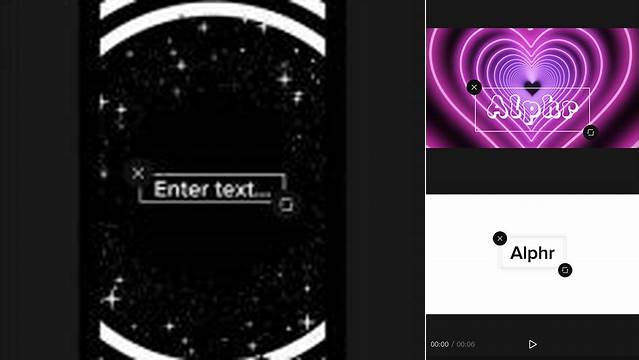
Best Fonts For CapCut: Make Your Videos Pop!
Hey guys! Ever wondered how to make your CapCut videos truly stand out? It’s not just about the awesome footage and slick editing – the fonts you use play a HUGE role. Choosing the right font can elevate your video from amateur to professional, adding that perfect touch of personality and clarity. So, let's dive into the best fonts to use in CapCut and how to make the most of them. We'll be covering everything from the basics of typography to specific font recommendations that will make your content shine. Ready to level up your video editing game? Let’s get started!
1. Understanding Typography Basics for CapCut
Before we jump into specific fonts, let's quickly cover some typography basics. Typography is the art and technique of arranging type to make written language legible, readable, and appealing when displayed. In the context of CapCut, understanding typography means knowing how different font styles can impact your video's message and overall aesthetic. There are a few key elements to consider, including font styles like serif, sans-serif, script, and display fonts, as well as concepts like kerning, leading, and tracking. Knowing these terms and how they apply to your font choices will help you create visually stunning and effective videos. When you consider the basics of typography for CapCut, you’ll find your videos start to look more polished. Think about how different fonts evoke different emotions. A playful script font might be perfect for a vlog, while a clean sans-serif font might be better suited for a tutorial or corporate video. You also need to think about readability. Is the font easy to read on different screen sizes and against different backgrounds? These are important questions to ask yourself when choosing the best fonts for your project. Experiment with different combinations and see what works best for your style. Typography is all about finding the right balance between aesthetics and functionality. So, take the time to learn the basics, and you'll be well on your way to creating visually compelling videos in CapCut.
2. Serif Fonts: Classic and Elegant Choices
Serif fonts are characterized by the small decorative strokes (serifs) at the end of each letter. These fonts are often associated with tradition, elegance, and authority. Think of classic books, newspapers, and high-end brands – they often use serif fonts. In CapCut, serif fonts can add a touch of sophistication and class to your videos. They work particularly well for titles, subtitles, and any text that needs to convey a sense of importance. When choosing a serif font for your project, consider the specific style and mood you want to create. Some popular serif fonts include Times New Roman, Garamond, and Playfair Display. Times New Roman is a classic choice, but it can sometimes feel a bit overused. Garamond is a more refined option, known for its readability and elegant appearance. Playfair Display is a bolder choice, perfect for headlines and titles that need to make a statement. The key is to find a serif font that complements your video's content and overall aesthetic. For instance, if you're creating a video about a historical topic or a formal event, a serif font might be the perfect choice. However, if your video is more casual and modern, you might want to consider a sans-serif font instead. Experiment with different serif fonts in CapCut and see how they impact the look and feel of your videos. Don't be afraid to mix and match different fonts, but always make sure your choices are cohesive and enhance your message. Remember, the goal is to create videos that are both visually appealing and easy to read.
3. Sans-Serif Fonts: Modern and Clean Options
If you're aiming for a modern, clean look, sans-serif fonts are the way to go. Unlike serif fonts, sans-serif fonts don't have those little decorative strokes at the ends of the letters. This gives them a more streamlined and contemporary feel. In CapCut, sans-serif fonts are incredibly versatile and work well for a wide range of video styles. They're particularly effective for body text, captions, and lower thirds, as they tend to be very readable on screens. When selecting a sans-serif font, think about the overall tone of your video. Do you want something bold and impactful, or something more subtle and understated? Some popular sans-serif fonts include Arial, Helvetica, and Montserrat. Arial is a widely used and highly legible option, making it a safe bet for most projects. Helvetica is another classic choice, known for its clean lines and timeless appeal. Montserrat is a more contemporary option, with a slightly bolder and more geometric design. Sans-serif fonts are also great for creating a sense of clarity and simplicity. They can help your message stand out without being overly distracting. For example, if you're creating a tutorial video, a clean sans-serif font can make the instructions easy to follow. Or, if you're making a promotional video, a bold sans-serif font can help your key messages pop. The key is to choose a sans-serif font that matches the overall style and purpose of your video. Don't be afraid to experiment with different options and see what works best for your specific needs. And remember, readability is key, so make sure your chosen font is easy to read on different devices and screen sizes.
4. Script Fonts: Adding a Touch of Personality
Script fonts mimic the flowing strokes of handwriting, adding a personal and artistic touch to your videos. These fonts can range from elegant and formal to playful and casual, making them a great option for adding personality and flair. In CapCut, script fonts are perfect for titles, intros, outros, and any text that needs a bit of extra character. They can also be used sparingly in body text to highlight key words or phrases. When choosing a script font, it's important to consider the overall tone and style of your video. A formal script font like Brush Script might be ideal for a wedding video or a high-end brand, while a more casual script font like Pacifico might be better suited for a vlog or a fun, informal project. Some popular script fonts include Brush Script, Pacifico, and Lobster. Brush Script is a classic choice, known for its elegant and flowing strokes. Pacifico is a more modern option, with a friendly and approachable feel. Lobster is a bolder script font, perfect for headlines and titles that need to make a statement. However, it's crucial to use script fonts sparingly and strategically. Because they can be more difficult to read than serif or sans-serif fonts, it's best to avoid using them for large blocks of text. Instead, use them to add a touch of personality and emphasis to key elements of your video. For instance, you might use a script font for the title of your video or for a special message at the end. The key is to find a balance between aesthetics and readability. Choose a script font that complements your video's content and overall style, but also make sure it's easy to read and understand. Experiment with different options in CapCut and see how they can enhance your videos.
5. Display Fonts: Bold and Creative Choices
Display fonts are designed to grab attention. These fonts are often bold, unique, and highly stylized, making them perfect for headlines, titles, and other prominent text elements. In CapCut, display fonts can add a creative and impactful touch to your videos, helping your message stand out. Display fonts come in a wide variety of styles, from vintage and retro to futuristic and abstract. They can be a great way to express your brand's personality or the overall theme of your video. When choosing a display font, it's important to consider the specific message you want to convey and the overall aesthetic you're aiming for. Some popular display fonts include Bebas Neue, Impact, and ChunkFive. Bebas Neue is a clean and modern sans-serif display font, perfect for headlines and titles. Impact is a bold and impactful font, ideal for making strong statements. ChunkFive is a retro-style slab serif font, great for adding a vintage touch. While display fonts are fantastic for making a statement, it's important to use them sparingly. Because they are often highly stylized, they can be difficult to read in large blocks of text. It's best to reserve display fonts for headlines, titles, and other key text elements that need to grab the viewer's attention. For example, you might use a display font for the title of your video or for a call to action at the end. The key is to choose a display font that complements your video's content and overall style, but also make sure it doesn't overwhelm the viewer. Experiment with different options in CapCut and see how they can enhance your videos without sacrificing readability. Remember, the best display fonts are those that strike the right balance between style and functionality.
6. Font Pairing: Creating Visual Harmony
Choosing the right font is important, but pairing fonts effectively is where the real magic happens. Font pairing involves selecting two or more fonts that complement each other, creating a visually harmonious and engaging design. In CapCut, effective font pairing can elevate your videos from good to great, adding a professional touch and enhancing readability. The basic idea behind font pairing is to create contrast while maintaining balance. This means choosing fonts that are different enough to be visually interesting but similar enough to work well together. A common approach is to pair a serif font with a sans-serif font. For example, you might use a serif font for your titles and a sans-serif font for your body text. This combination provides a clear visual hierarchy, making your video easier to read and understand. Another approach is to pair a bold font with a lighter font. This can help you draw attention to key elements while maintaining a clean and uncluttered look. For instance, you might use a bold display font for your headlines and a lighter sans-serif font for your subtitles. When choosing fonts to pair, consider the overall tone and style of your video. If you're creating a formal video, you might choose a more classic and elegant font pairing. If you're creating a casual video, you might opt for a more playful and contemporary combination. Experiment with different font pairings in CapCut and see what works best for your project. Don't be afraid to try new things, but always make sure your font choices are cohesive and enhance your message. Remember, the goal is to create a visual hierarchy that guides the viewer's eye and makes your video easy to watch and understand.
7. Font Size and Readability in CapCut
Font size and readability are crucial factors in ensuring your text is easily understood by your viewers in CapCut. No matter how beautiful a font is, if it's too small or difficult to read, it won't serve its purpose. In CapCut, it's important to choose font sizes that are appropriate for the screen size and viewing distance. Generally, larger font sizes are better for titles and headlines, while smaller font sizes are suitable for body text and captions. However, there's no one-size-fits-all answer. The ideal font size will depend on the specific font you're using, the background you're placing the text on, and the overall design of your video. A good rule of thumb is to test your text on different devices and screen sizes to make sure it's legible. If you're creating videos for mobile devices, for example, you'll likely need to use larger font sizes than if you're creating videos for desktop computers. In addition to font size, consider factors like font weight and letter spacing. A bold font weight can make text stand out, but too much bold text can become overwhelming. Letter spacing (also known as tracking) can also affect readability. Too little letter spacing can make text look cramped, while too much letter spacing can make text look disjointed. To optimize readability, make sure there's sufficient contrast between your text and the background. Light text on a dark background or dark text on a light background is generally easier to read than text with low contrast. Experiment with different font sizes, weights, and spacing in CapCut to find the optimal settings for your video. Remember, the goal is to make your text as clear and easy to read as possible, so your viewers can focus on your message without straining their eyes.
8. Text Placement and Visual Hierarchy
Text placement and visual hierarchy are essential elements in video design, especially in CapCut. Where you place your text and how you arrange it can significantly impact how viewers perceive and understand your message. Visual hierarchy refers to the arrangement of elements in a way that guides the viewer's eye and communicates the relative importance of different pieces of information. In CapCut, this means strategically placing text to highlight key messages and create a clear flow of information. Start by considering the overall composition of your video. Where are the focal points? Where are the areas of visual interest? You'll want to place your text in a way that complements these elements and doesn't compete with them. A common technique is to use the rule of thirds, which involves dividing your screen into a 3x3 grid and placing key elements along the lines or at the intersections. This can help you create a balanced and visually appealing composition. When it comes to text placement, consider the purpose of each text element. Titles and headlines should be placed prominently, where they're easy to see and read. Subtitles and captions should be placed at the bottom of the screen, where they won't obscure the main action. Body text should be placed in a clear and uncluttered area, where it can be easily read without distraction. Use font size, weight, and color to create a visual hierarchy within your text. Larger, bolder text will naturally draw the viewer's eye, while smaller, lighter text will recede into the background. You can also use color to highlight key words or phrases. Experiment with different text placements and visual hierarchies in CapCut to see what works best for your video. Remember, the goal is to guide your viewers through your message in a clear and engaging way. By carefully considering text placement and visual hierarchy, you can create videos that are both visually appealing and highly effective.
9. Color Contrast for Text in CapCut
Color contrast is a fundamental principle in design, and it's especially crucial when working with text in CapCut. The right color contrast ensures your text is easily readable and stands out against the background. Poor color contrast, on the other hand, can make your text difficult to read, frustrating viewers and potentially obscuring your message. In CapCut, there are several ways to optimize color contrast for your text. The most basic principle is to choose colors that are significantly different from each other. Light text on a dark background or dark text on a light background generally provides the best contrast. However, there are many other factors to consider. The specific colors you choose can also impact readability. For example, bright, saturated colors can be eye-catching, but they can also be tiring to look at for extended periods. More muted, desaturated colors may be easier on the eyes, but they may not provide enough contrast against certain backgrounds. When selecting colors, think about the overall tone and style of your video. Do you want to create a bold and energetic look, or a more subtle and sophisticated one? Your color choices should reflect this. You can use color wheels and online tools to help you find color combinations that provide good contrast and visual harmony. CapCut also offers various text styling options, such as shadows, outlines, and backgrounds, which can help you improve color contrast. For example, adding a slight shadow to your text can make it stand out from a busy background. Experiment with different color combinations and text styles in CapCut to find the optimal contrast for your video. Remember, the goal is to make your text as clear and readable as possible, so your viewers can focus on your message without straining their eyes. By carefully considering color contrast, you can create videos that are both visually appealing and highly effective.
10. Using Text Styles and Effects in CapCut
CapCut offers a variety of text styles and effects that can help you enhance the visual appeal of your videos. From basic shadows and outlines to more advanced animations and transitions, these tools can add depth, personality, and flair to your text. However, it's important to use these styles and effects judiciously. Overusing them can make your text look cluttered and distracting, which can detract from your message. One of the most common text styles is the shadow. Adding a subtle shadow to your text can help it stand out from the background, especially if the background is busy or colorful. You can adjust the shadow's color, opacity, and distance to achieve the desired effect. Another popular style is the outline. Outlines can define the edges of your text, making it more visible and readable. Like shadows, outlines can be customized with different colors, thicknesses, and opacities. CapCut also offers a range of text animations, from simple fades and slides to more complex and dynamic effects. Animations can be a great way to draw attention to your text and make your videos more engaging. However, it's important to choose animations that are appropriate for your video's style and tone. A slow, subtle fade might be perfect for a formal video, while a more energetic animation might be better suited for a fun, casual project. In addition to animations, CapCut offers various text transitions that can help you smoothly introduce and remove text from the screen. Transitions can prevent jarring cuts and create a more polished and professional look. When using text styles and effects, always prioritize readability. Make sure your text remains clear and easy to read, even with the added styles. Experiment with different options in CapCut to find the perfect balance between style and functionality. Remember, the goal is to enhance your message, not to overshadow it.
11. Animation Styles for Text in CapCut
Animation styles can significantly elevate the dynamism and engagement of your videos in CapCut. Text animations, in particular, can draw the viewer’s eye, emphasize key points, and add a professional touch to your content. CapCut offers a diverse range of animation styles, from subtle fades and slides to more elaborate and attention-grabbing effects. Choosing the right animation style is crucial for conveying the intended message and maintaining the overall tone of your video. For instance, a simple fade-in or fade-out is ideal for introducing or removing text smoothly and unobtrusively. This style is often used in corporate videos or tutorials where clarity and professionalism are paramount. On the other hand, more dynamic animations like typewriter effects, zooms, or bounces can inject energy and excitement into your content. These styles are well-suited for vlogs, social media clips, and promotional videos aiming to capture attention quickly. When selecting an animation style, consider the context and purpose of your text. Is it a title that needs to make a bold statement? Or is it a subtitle that should seamlessly integrate with the visuals? The animation should complement the text’s role and enhance its impact without being distracting. Experimenting with different animation styles in CapCut can help you discover which ones best suit your projects. Pay attention to the speed, timing, and visual impact of each animation. A well-chosen animation can transform your text from static elements to captivating visual cues, making your videos more engaging and memorable. However, remember that subtlety often goes a long way. Overusing animations or selecting overly complex styles can overwhelm viewers and detract from your message. Aim for a balance that enhances your text without stealing the show.
12. Text Timing and Duration in Videos
Text timing and duration are critical elements in video editing, especially when using CapCut. The amount of time your text is displayed on screen and when it appears can significantly impact how well your message is received. Effective timing ensures that viewers have enough time to read and comprehend the text without it lingering for too long and becoming a distraction. The ideal duration for text on screen depends on several factors, including the length of the text, the reading speed of your target audience, and the overall pace of your video. As a general guideline, aim to display text for at least three to five seconds, allowing viewers to comfortably read the information. For longer sentences or paragraphs, you may need to extend the duration accordingly. Timing the appearance of your text with the visuals and audio in your video is equally important. The text should align with the spoken words or on-screen actions to reinforce the message and maintain viewer engagement. Introducing text too early or too late can create confusion and disrupt the flow of your video. CapCut provides intuitive tools for adjusting the timing and duration of text elements. You can easily drag the edges of the text layer on the timeline to lengthen or shorten its display time. Experimenting with different timings can help you find the perfect balance for your video. Consider adding animations or transitions to your text to make its appearance and disappearance smoother and more visually appealing. Fade-in and fade-out effects can create a subtle and professional transition, while more dynamic animations can add flair and excitement. When planning your text timing and duration, always prioritize clarity and readability. Test your video on different devices and screen sizes to ensure the text is easily visible and legible. By carefully managing these elements, you can create videos that effectively communicate your message and keep your audience engaged.
13. Kerning, Tracking, and Leading Adjustments
Kerning, tracking, and leading are essential typography adjustments that fine-tune the appearance and readability of your text in CapCut. Understanding and utilizing these settings can elevate your video’s visual appeal and ensure your message is communicated effectively. Kerning refers to the adjustment of the space between individual characters. Proper kerning ensures that letters fit together harmoniously, preventing awkward gaps or overlaps that can hinder readability. For instance, letters like “W” and “A” often require kerning adjustments to prevent excessive space between them. Tracking, also known as letter-spacing, involves uniformly adjusting the space between all characters in a word or line of text. Increasing tracking can create a more airy and modern look, while decreasing it can make text appear denser and more compact. However, extreme tracking adjustments can negatively impact readability, so it’s crucial to strike a balance. Leading, also called line-spacing, refers to the vertical space between lines of text. Adjusting leading is particularly important for multi-line text blocks, as it affects how easily the eye can move from one line to the next. Insufficient leading can make text appear cramped and difficult to read, while excessive leading can create a disjointed look. CapCut provides tools for adjusting kerning, tracking, and leading, allowing you to fine-tune your text’s appearance. Experimenting with these settings can significantly improve the readability and visual appeal of your videos. When making these adjustments, consider the font style, size, and the overall design of your video. Different fonts may require different kerning and tracking adjustments to achieve optimal readability. Similarly, the appropriate leading may vary depending on the length of your lines and the amount of text on screen. By mastering kerning, tracking, and leading adjustments, you can create polished and professional-looking text that enhances your video’s message and engages your audience.
14. Font Licensing and Legal Considerations
When using fonts in your CapCut videos, it's essential to consider font licensing and legal considerations. Using a font without the proper license can lead to legal issues, especially if your videos are for commercial purposes. Understanding the basics of font licensing can help you avoid potential copyright infringements and ensure you're using fonts legally. Most fonts are protected by copyright laws, and their use is governed by licensing agreements. These licenses specify how the font can be used, including whether it can be used for personal or commercial projects, how many devices it can be installed on, and whether it can be embedded in digital products like videos. There are several types of font licenses, each with its own terms and conditions. Some common types include: - Desktop licenses: These licenses allow you to install the font on your computer and use it in applications like CapCut. They often specify the number of users or devices allowed. - Web licenses: These licenses allow you to use the font on websites, often through web fonts or embedding services. - App licenses: These licenses allow you to embed the font in mobile applications. - Commercial licenses: These licenses allow you to use the font for commercial purposes, such as in marketing materials, advertisements, and videos that generate revenue. - Personal licenses: These licenses are typically for non-commercial use only. When choosing fonts for your CapCut videos, always check the font's license to ensure it covers your intended use. Many free fonts come with specific usage restrictions, so it's crucial to read the license agreement carefully. If you're creating videos for commercial purposes, you'll likely need a commercial license. There are many reputable font foundries and online marketplaces where you can purchase fonts with commercial licenses. Some popular options include Adobe Fonts, Google Fonts, and MyFonts. Google Fonts is a particularly useful resource, as it offers a wide range of free fonts that are licensed for both personal and commercial use. By understanding font licensing and legal considerations, you can ensure you're using fonts responsibly and avoid potential legal issues. Always prioritize using properly licensed fonts in your CapCut videos to protect yourself and your creative work.
15. Finding Free Fonts for CapCut
Finding high-quality free fonts for CapCut can significantly enhance your video projects without incurring additional costs. There are numerous online resources offering a wide variety of fonts that are licensed for both personal and commercial use. However, it's crucial to ensure that the fonts you download are reputable and come with the appropriate licenses to avoid potential legal issues. One of the most popular and reliable sources for free fonts is Google Fonts. Google Fonts offers a vast library of open-source fonts that are free to use for any purpose, including commercial projects. The fonts are well-designed, optimized for web and print use, and easy to integrate into CapCut. The Google Fonts website allows you to browse fonts by category, style, and language, making it easy to find the perfect font for your video. Another excellent resource is Font Squirrel. Font Squirrel curates a selection of high-quality, free fonts that are licensed for commercial use. The site focuses on fonts that are properly licensed and ready for use in professional projects. Font Squirrel also offers a useful Font Identifier tool that can help you identify a font from an image, making it easier to find similar fonts for your projects. DaFont is another popular website offering a large collection of free fonts. However, it's essential to be cautious when downloading fonts from DaFont, as some fonts may have restrictions on commercial use. Always check the font's license before using it in your videos. Creative Market often offers free font downloads as part of its weekly free goods promotion. Signing up for their newsletter can keep you informed about these freebies. While the selection may vary, it's a great way to discover new and interesting fonts. When downloading free fonts, it's crucial to pay attention to the license agreement. Look for licenses like the SIL Open Font License (OFL), which allows for commercial use and modification. Avoid fonts with licenses that restrict commercial use or require attribution. By utilizing these resources and paying attention to licensing terms, you can find a wide range of high-quality free fonts to enhance your CapCut videos without breaking the bank.
16. Installing Custom Fonts in CapCut
Installing custom fonts in CapCut allows you to expand your creative options and personalize your video projects. While CapCut comes with a selection of built-in fonts, adding custom fonts enables you to use unique typefaces that perfectly match your brand or video style. The process for installing custom fonts varies depending on the device you're using, but it's generally straightforward. On mobile devices (iOS and Android), installing custom fonts typically involves using a third-party app designed for font management. Some popular apps include iFont for iOS and Font Installer for Android. These apps allow you to download fonts from various sources and install them on your device, making them available for use in apps like CapCut. Here's a general outline of the steps: 1. Download the font file: Find a font you like and download the TTF or OTF file to your device. 2. Install a font management app: Download and install a font management app like iFont (iOS) or Font Installer (Android). 3. Import the font: Open the font management app and import the downloaded font file. 4. Install the font: Follow the app's instructions to install the font on your device. 5. Restart CapCut: Close and reopen CapCut to ensure the new font appears in the font list. On desktop computers (Windows and macOS), the process is more direct: Windows: 1. Download the font file: Download the TTF or OTF font file. 2. Right-click and install: Right-click on the font file and select